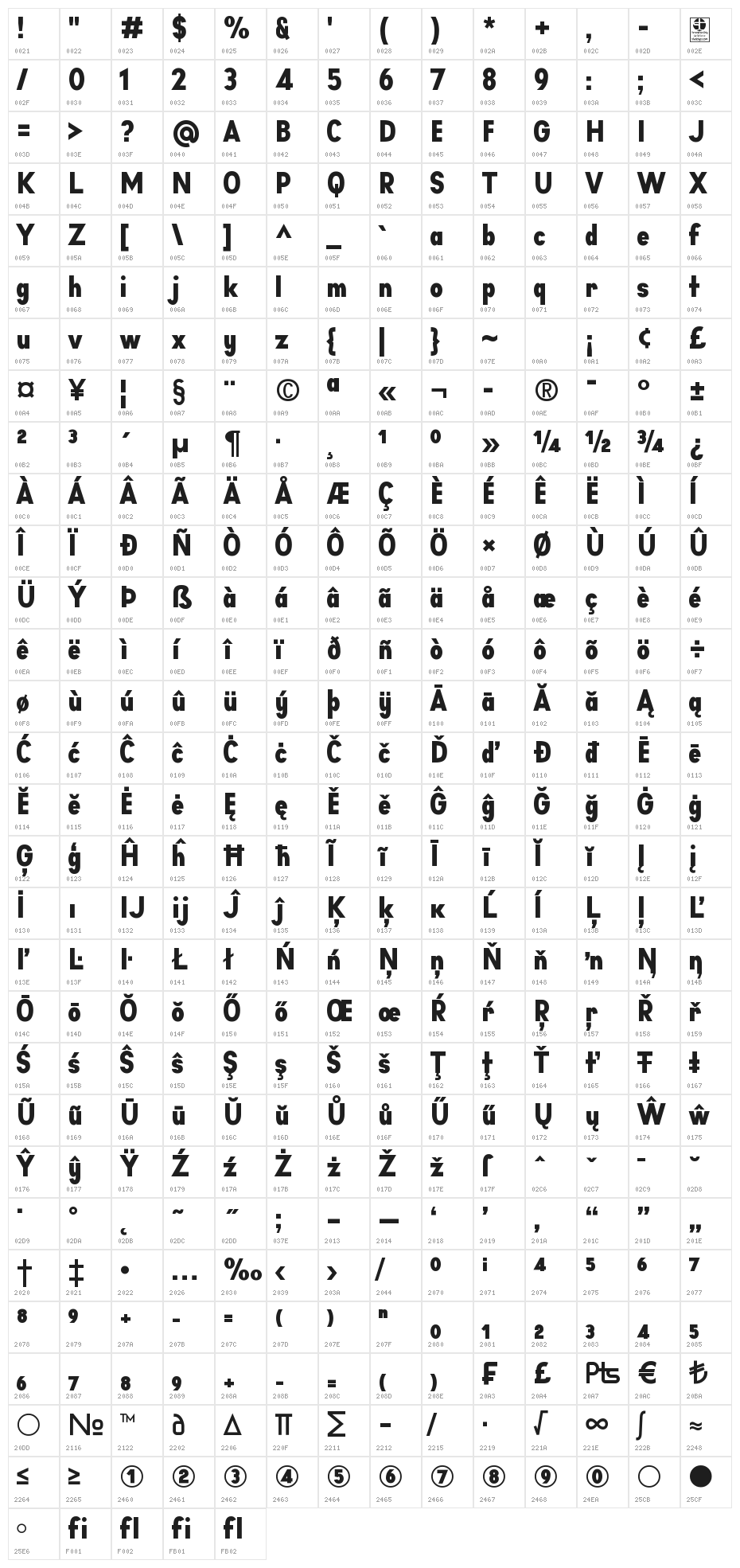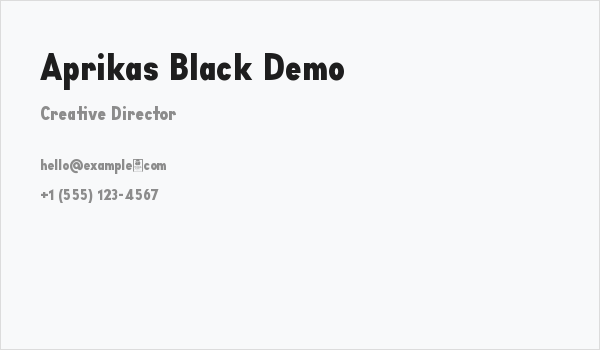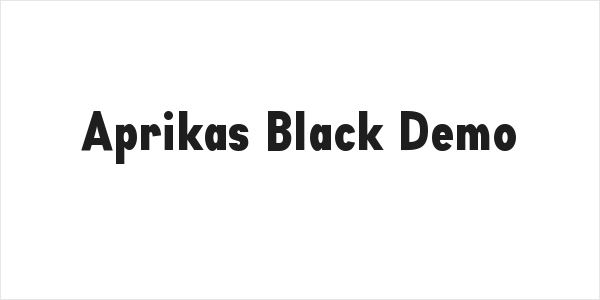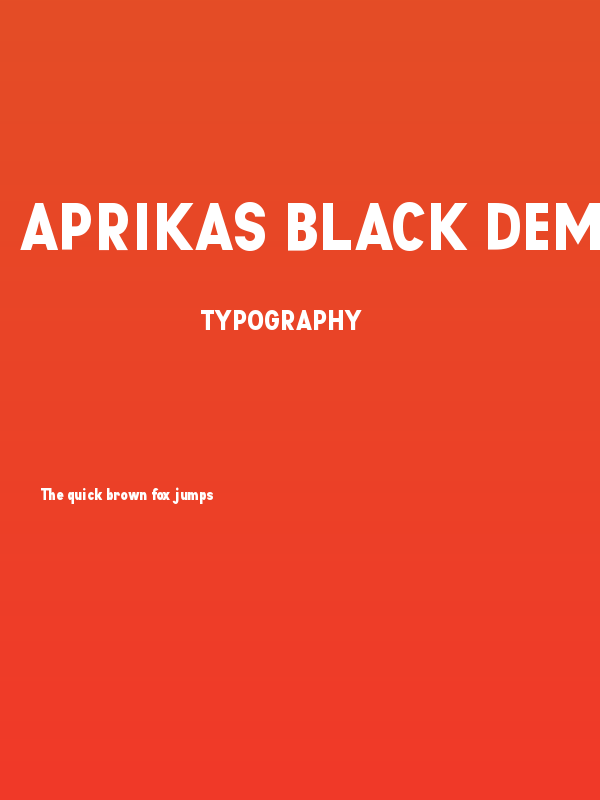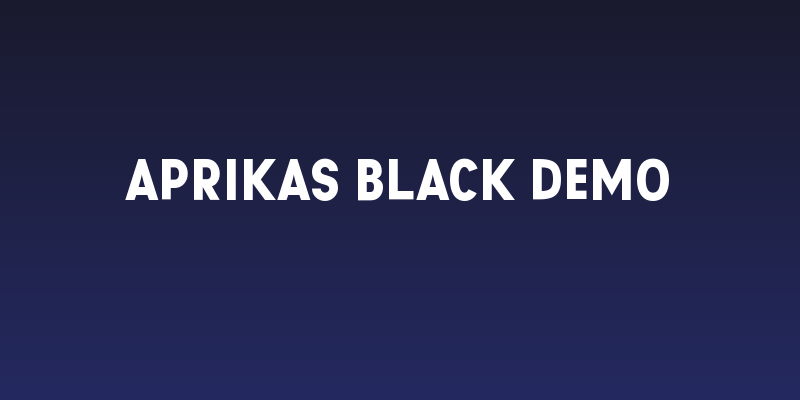
Aprikas Black Demo Font
Aprikas Black Demo Description
This font features bold, thick strokes that convey a strong and impactful presence. The characters are uniformly wide, with a modern and clean aesthetic. The uppercase and lowercase letters maintain a consistent weight, providing a cohesive look. The numerals are equally bold, ensuring visibility and readability. Special characters are designed with the same boldness, making them stand out. The overall style is robust and assertive, suitable for making a statement.
Proposed ProjectsIdeal for headlines, posters, branding, and any project requiring a bold statement.